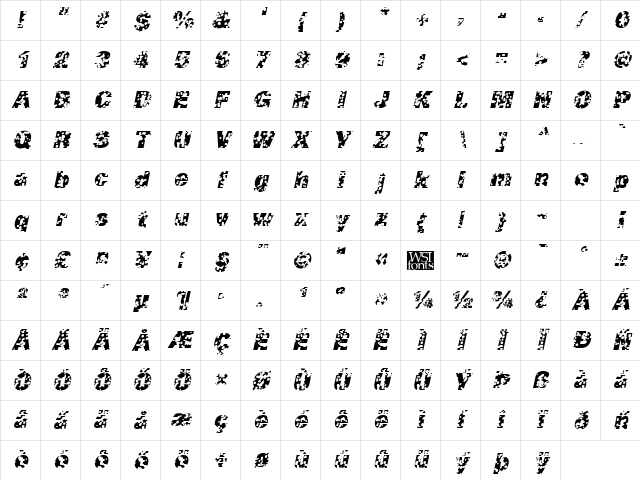
SwissCheese Italic
SwissCheese Family
SwissCheese Italic
Design Context for SwissCheese
SwissCheese is a composed and adaptable typeface that performs quietly and consistently across a wide range of design contexts. The slanted form adds forward momentum and visual energy.
Pro Tip: Use SwissCheese for emphasis, pull quotes, and subheadings where its slanted energy can add rhythm to the layout.